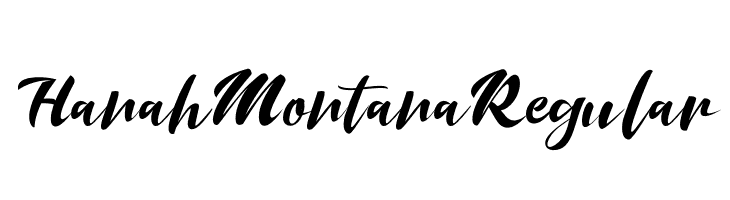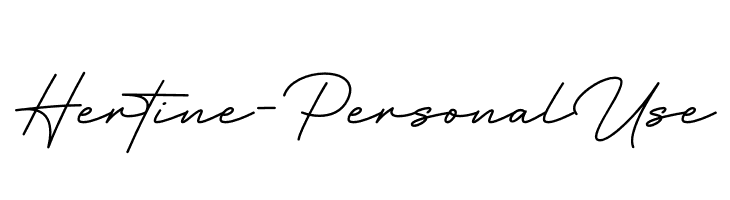
An elegant and fluid script font with a natural handwriting style.
A cursive, handwritten font with elegant, flowing strokes.
A graceful, handwritten script font with a fluid and elegant style.
A graceful and elegant script font with flowing, connected characters.
A graceful and elegant handwritten script with smooth, flowing curves.
A graceful, handwritten script font with fluid, connected characters.
A bold, playful, hand-drawn font with rounded, connected characters.
A bold, expressive script font with a handwritten feel and elegant flourishes.
A fluid and elegant handwritten script with seamless letter connections.
A playful, handwritten cursive font with smooth, flowing strokes.